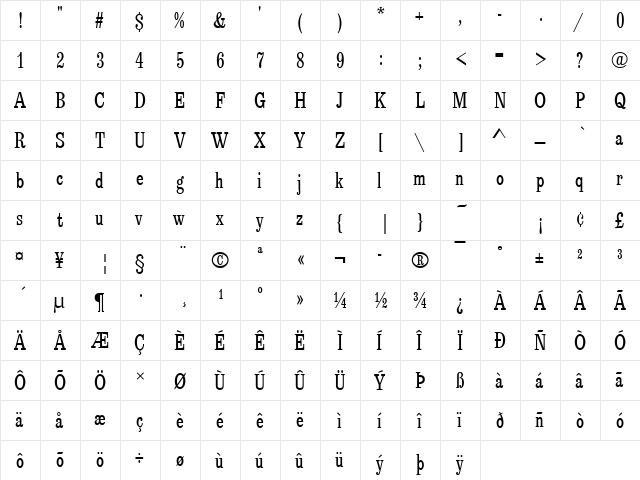
Egizio Becker Cond Regular
Design Context for Egizio Becker Cond Typeface
Egizio Becker Cond takes a measured approach to typography — its balanced proportions and neutral character make it a reliable workhorse for both digital and print work. Its narrow stance lets it pack a punch even in space-constrained designs.